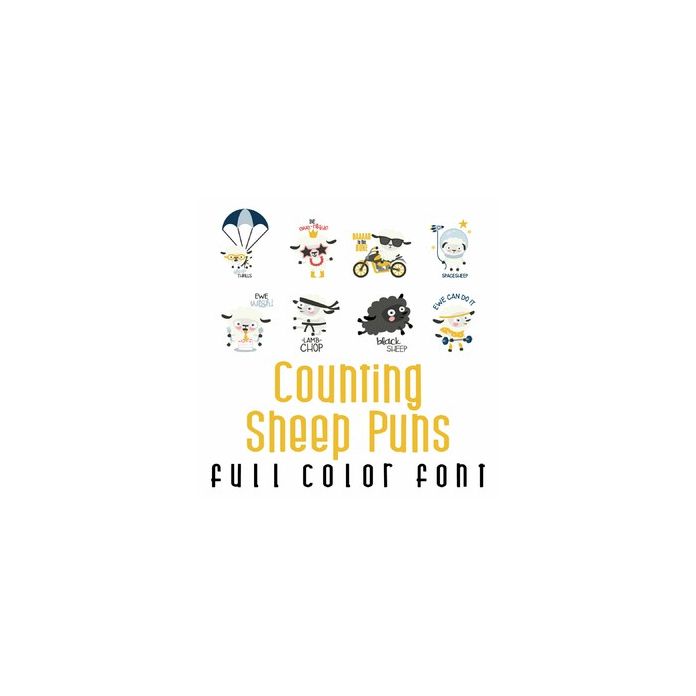
This adorable full-color doodlebat font features 26 fun sheep puns. Perfect for cards, crafts, gifts, decor, scrapbook pages, planner stickers, and more!